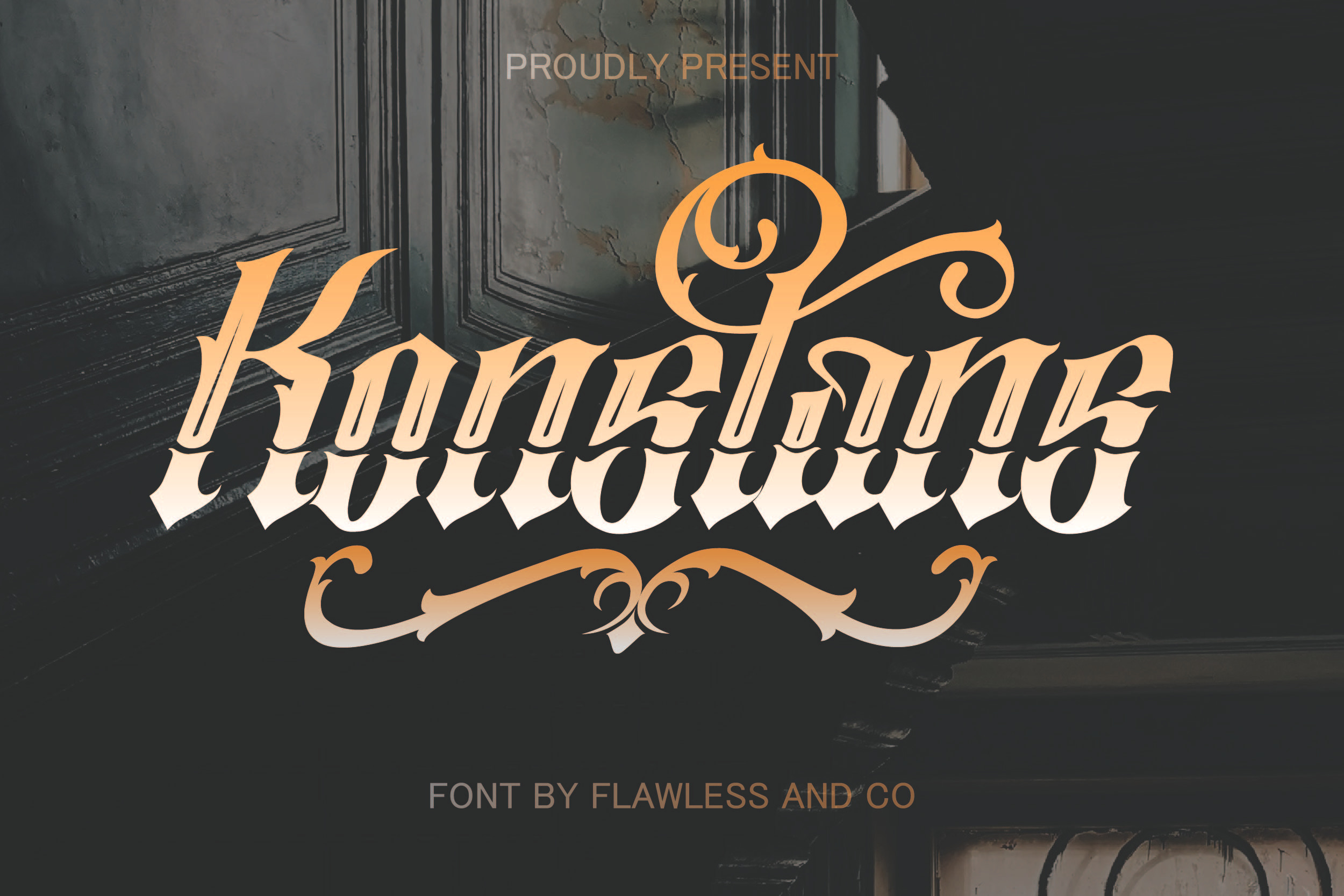
Konstan Tatto Font
introducing our new "Konstan" Modern Blackletter Font with Elegant Style is perfect for your design
Multilingual Uppercase alphabet A-Z Lowercase alphabet a-z Alternate Character Numbers 0-9 Some punctuation